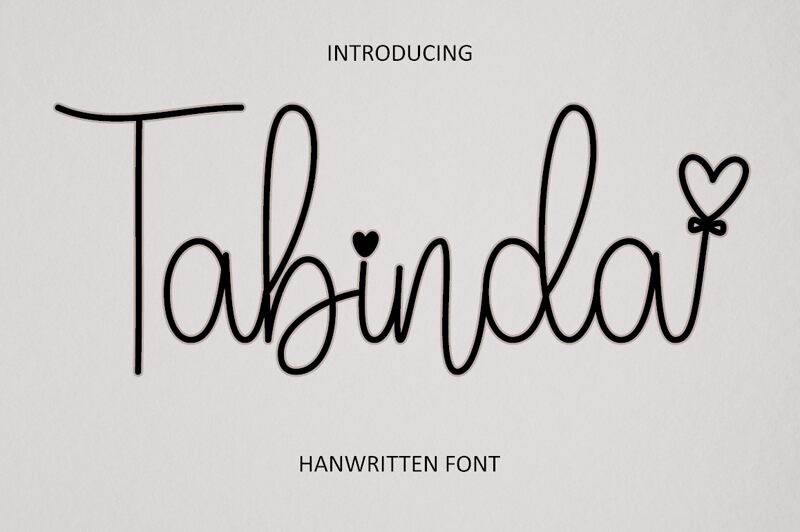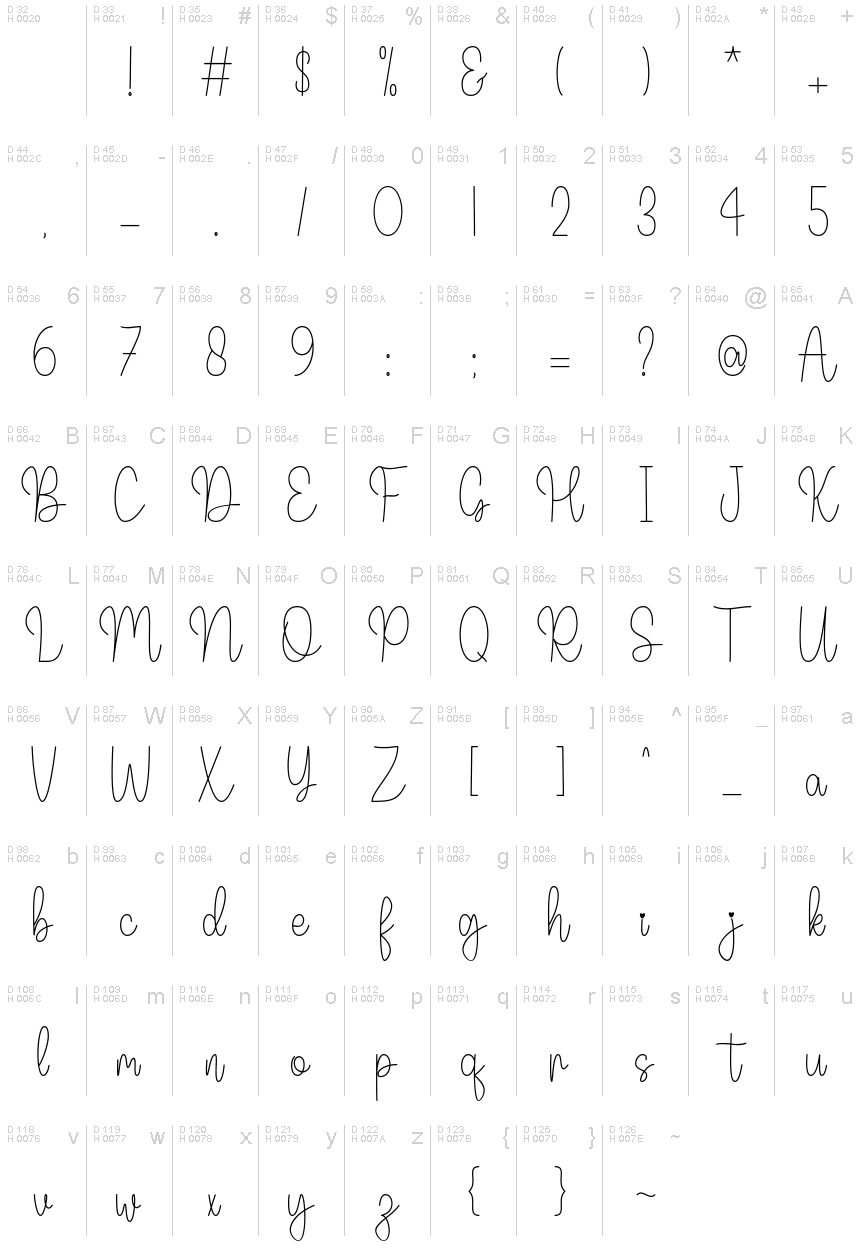
Tabinda
Tabinda, designed by Hardiboy Design, is a font that captures the essence of personal touch with its handwritten style. Its delicate form exudes a light and airy quality, while the condensed nature allows for elegant efficiency in space utilization without sacrificing readability. The playful heart detail adds a charming flourish, infusing designs with warmth and personality.
Ideal for invitations, greeting cards, and branding that require a hint of intimacy and authenticity, Tabinda is versatile enough to add a soft, approachable feel to various creative projects. Its distinct style makes it perfect for instances where design seeks to convey heartfelt messages or a sense of handcrafted care.